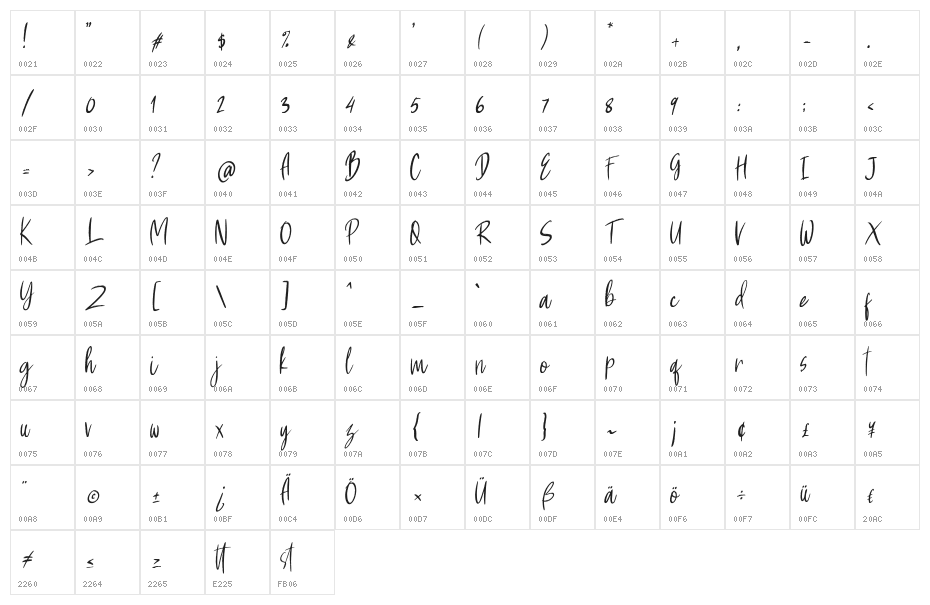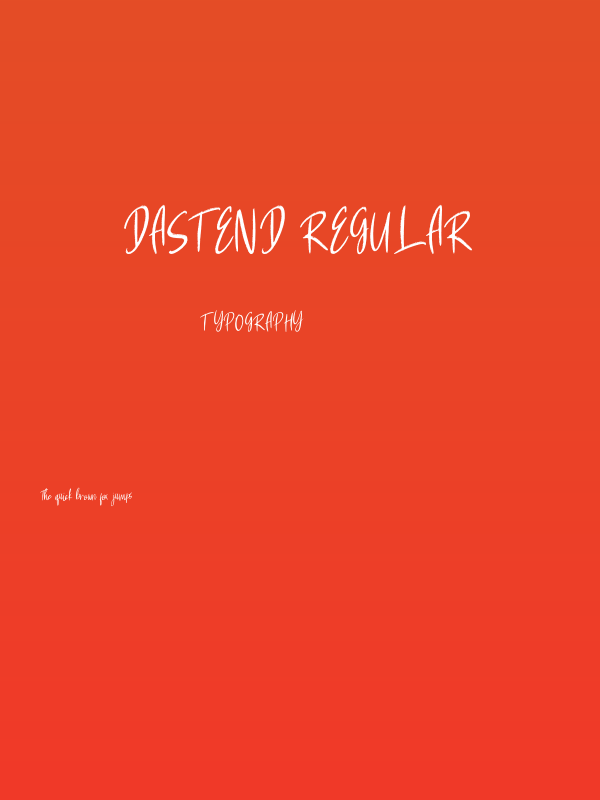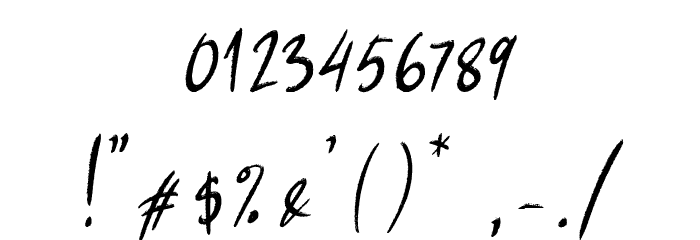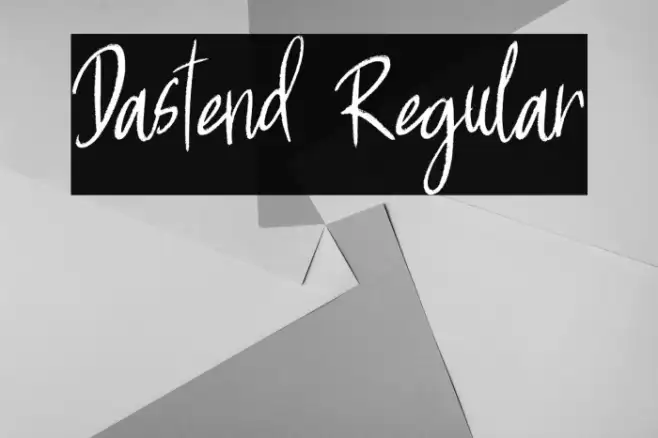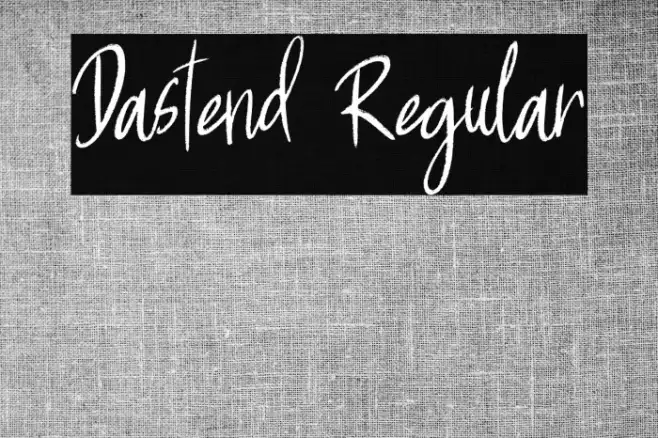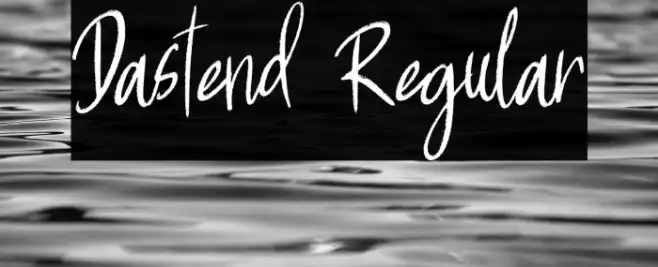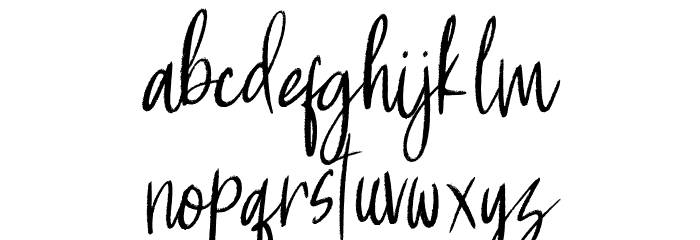
Dastend Regular Font
Dastend Regular Description
This font exudes a lively and energetic handwritten style, characterized by its fluid and dynamic strokes. The letters are crafted with a natural flow, giving an impression of spontaneity and creativity. The uppercase letters are bold and slightly elongated, while the lowercase letters maintain a consistent rhythm with playful loops and curves. The numerals and special characters complement the overall aesthetic, adding to its versatile appeal. This font is perfect for projects that require a personal touch, such as invitations, greeting cards, or creative branding.